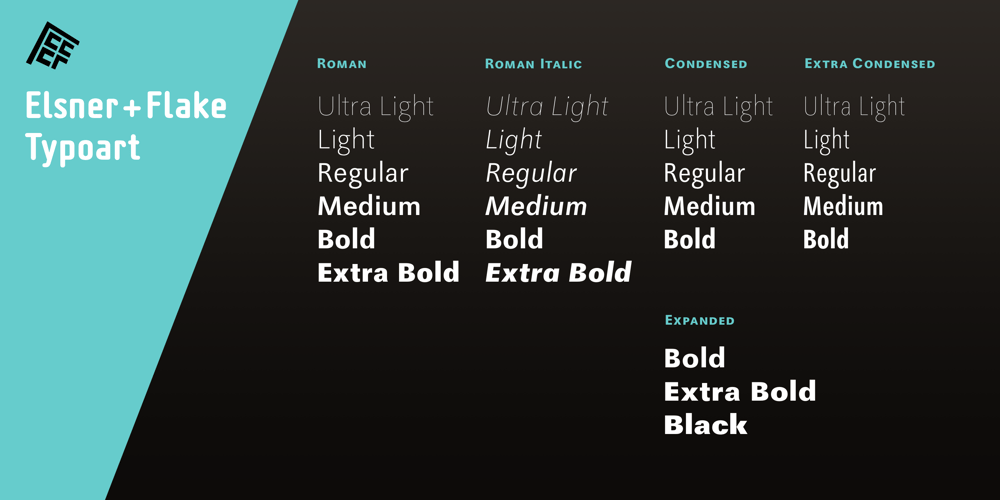
Maxima Now Pro Font Family was designed by Gert Wunderlich and published by Elsner+Flake. Maxima Now Pro contains 25 styles and family package options. The sans serif linear antiqua Maxima which was created in the beginning of the sixties by Prof. Gert Wunderlich for Typoart Dresden, was newly actualized in 2007 after more than 45 years. Many hands and heads were involved in the successful re-design of Maxima Now over a period of two years to assist the designers of the Elsner+Flake Design Studios in Hamburg, and the typeface family is now available. The re-design happened in close cooperation with Wunderlich who has given support to numerous projects in Elsner+Flake’s studio in Hamburg. A great deal of care was given to the necessary preliminary tasks such as the viewing of the original designs and print tests, the analysis of the digital Typoart data which had been in the possession of Elsner+Flake since 1985 and 1989, and a design conceptualization based on detail correlations, as well as the extension of the character complement. It had been Elsner+Flake’s goal to include as many of the existing Maxima cuts into the re-design program as possible. The result is an extended font family with 25 weights in EuropaPlus layout.